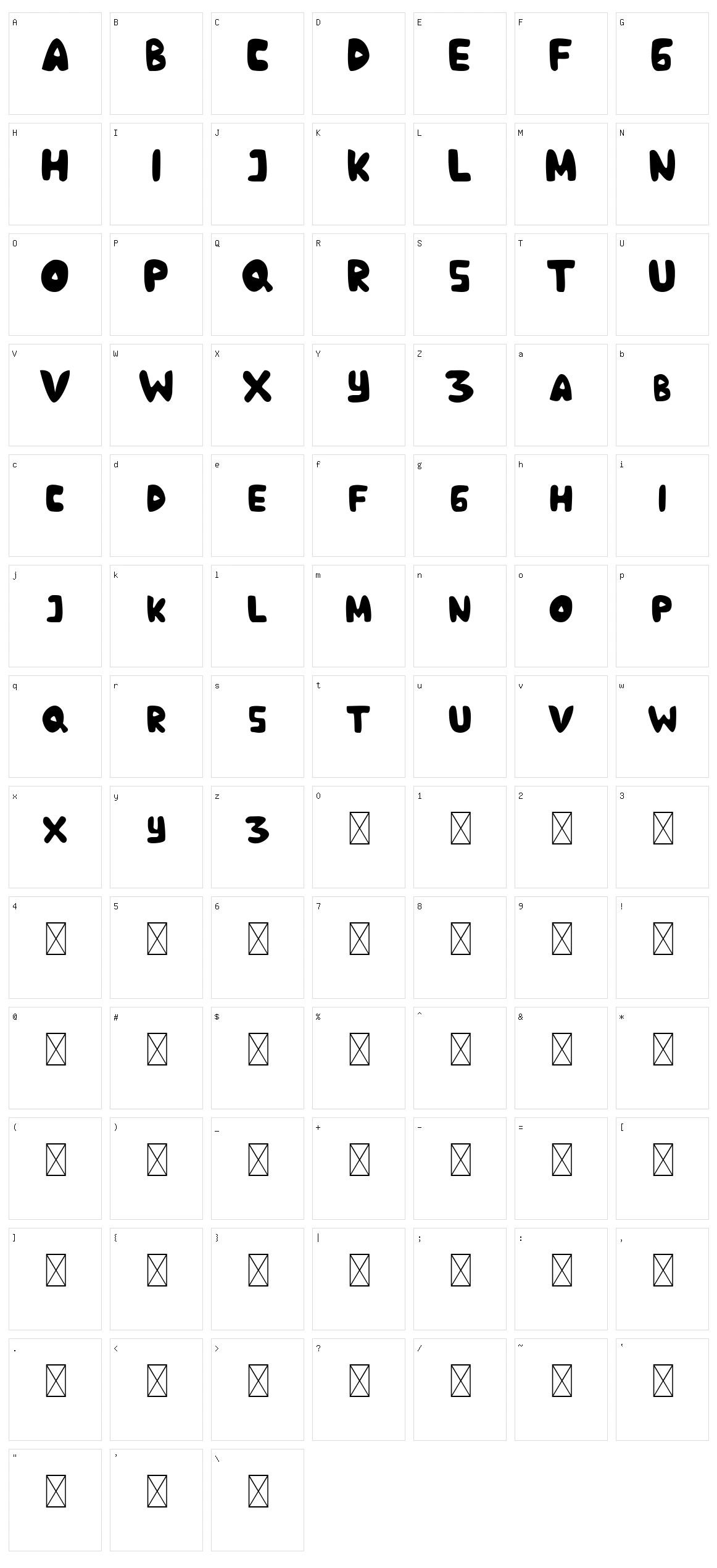
The free font Stepballoon is carefully designed by Edric Studio, showcasing a thoughtful balance of creativity and usability and falls under the Cartoon font style. When you download the ZIP file, it contains only 14.37 KB of font files, making it lightweight and quick to download. Please review the license details below to understand permitted usage and distribution rights. If license information is not available, we recommend using this font for personal projects only or contacting the author directly for commercial usage permissions.